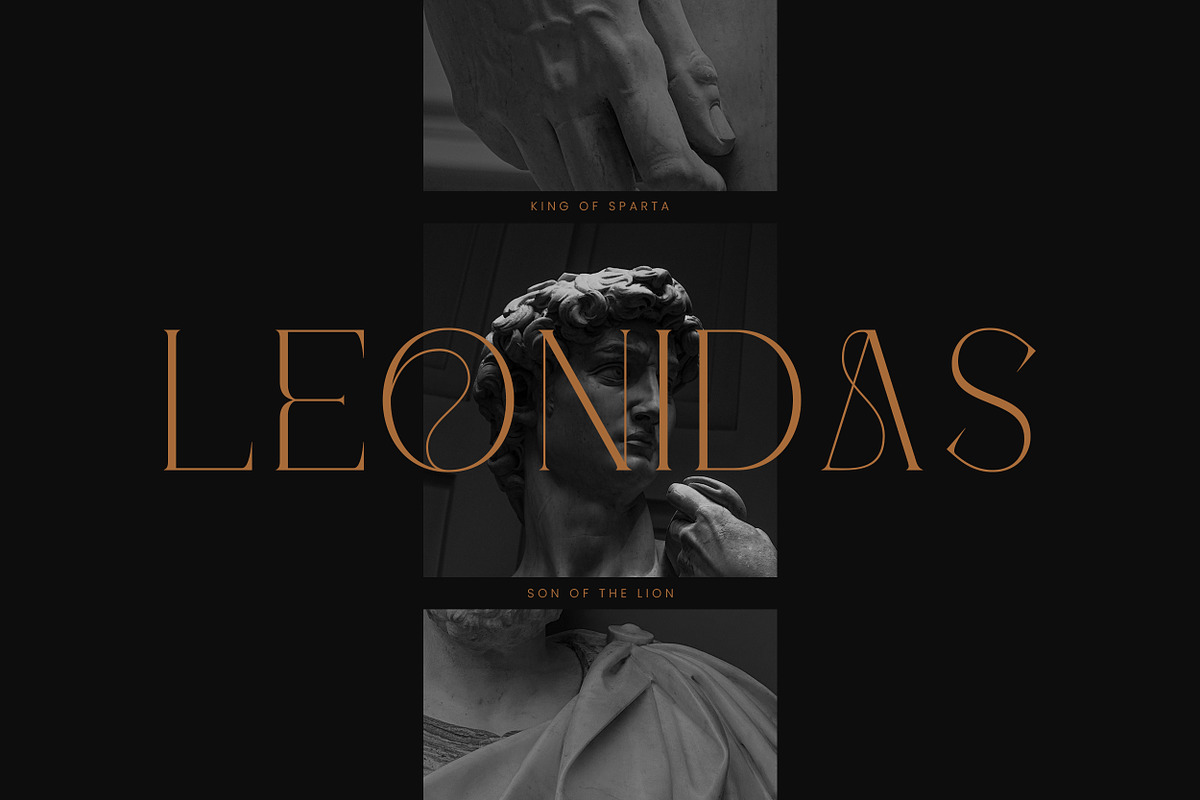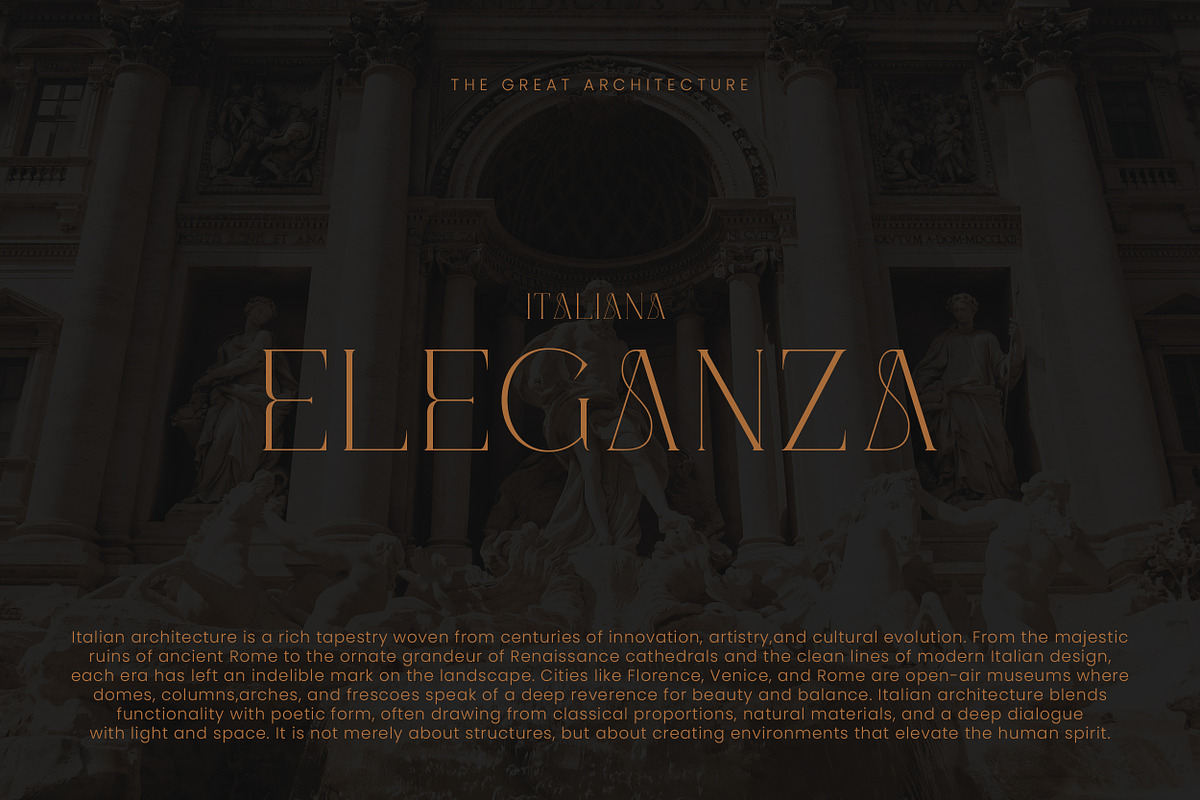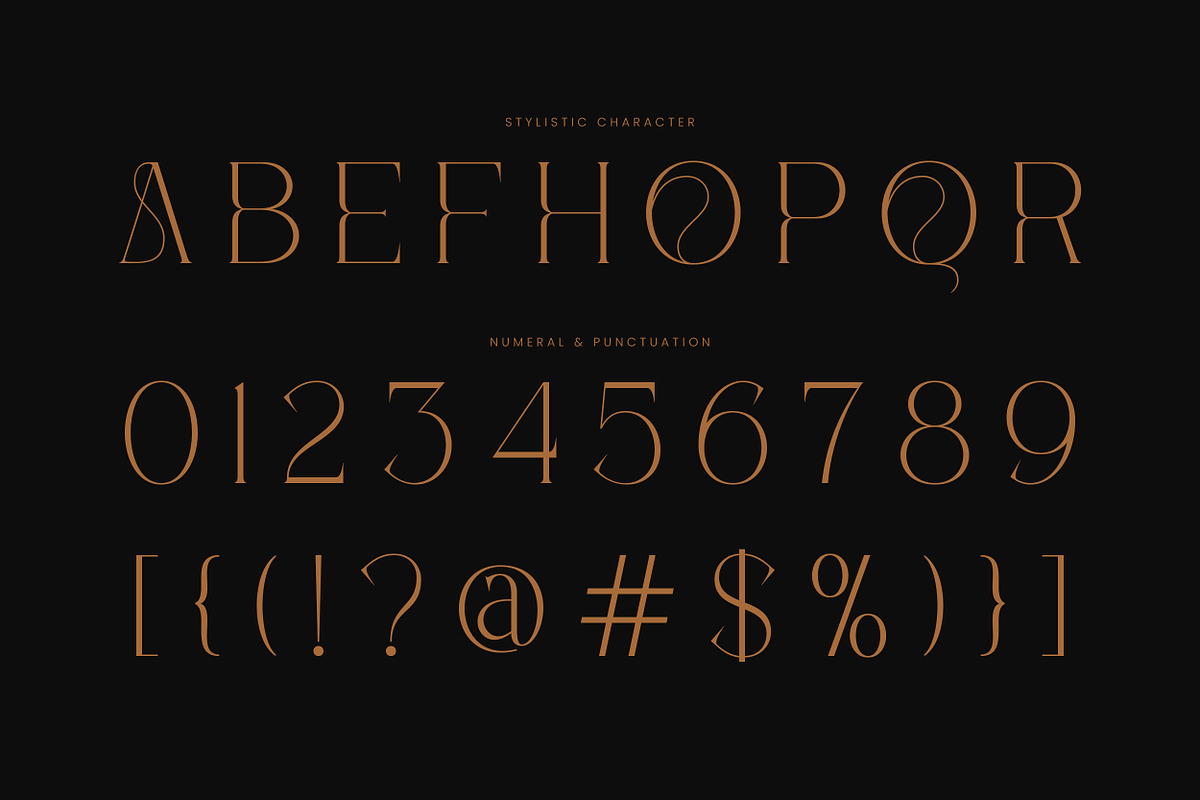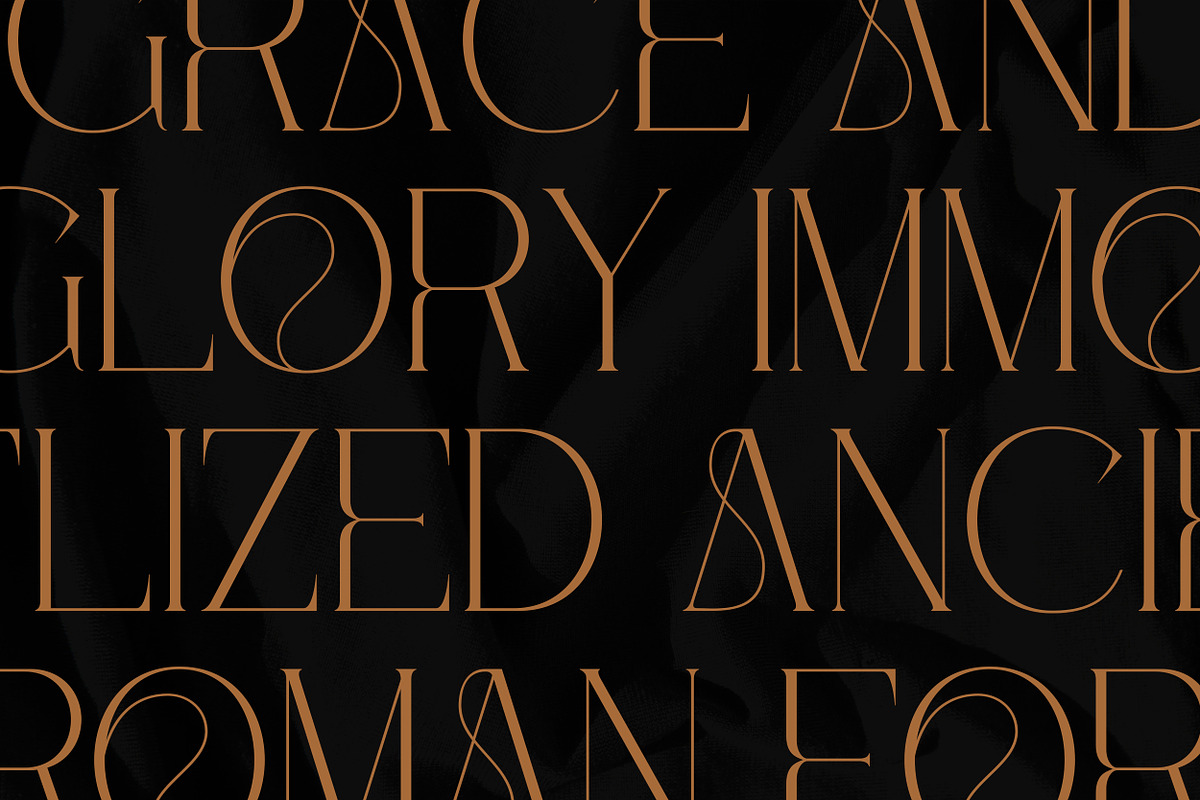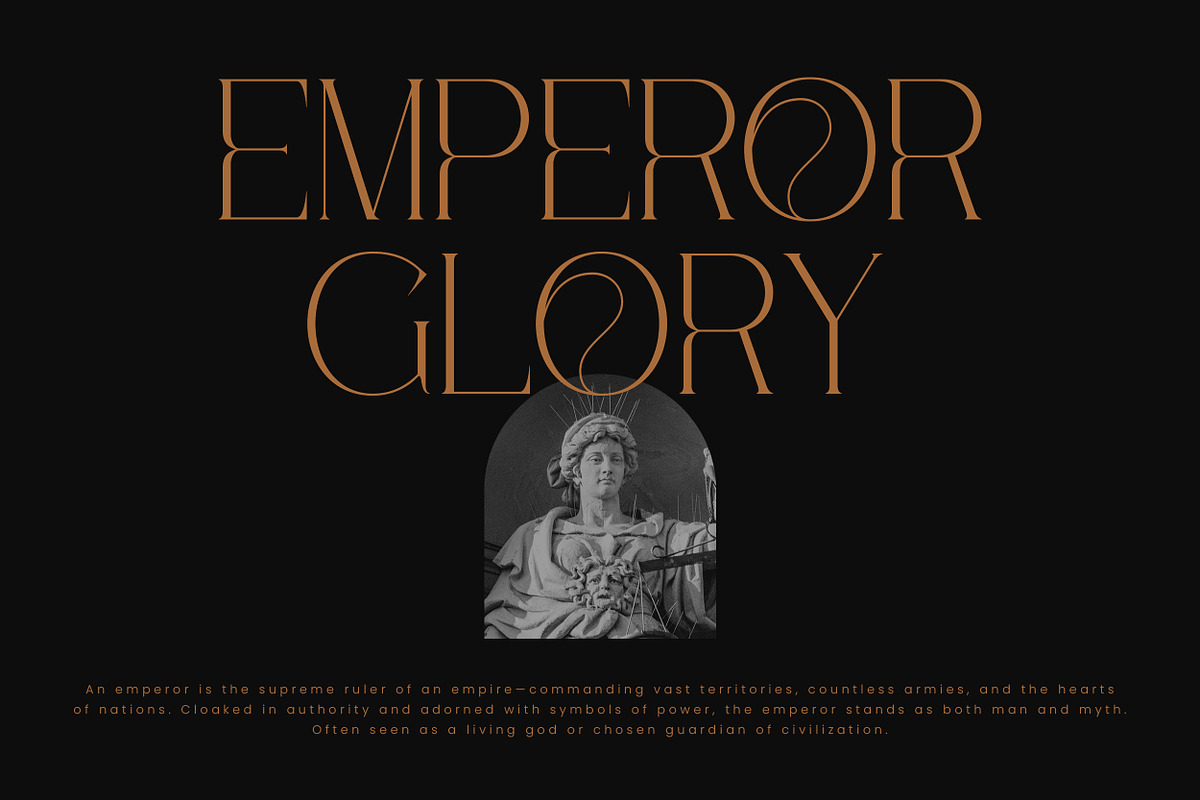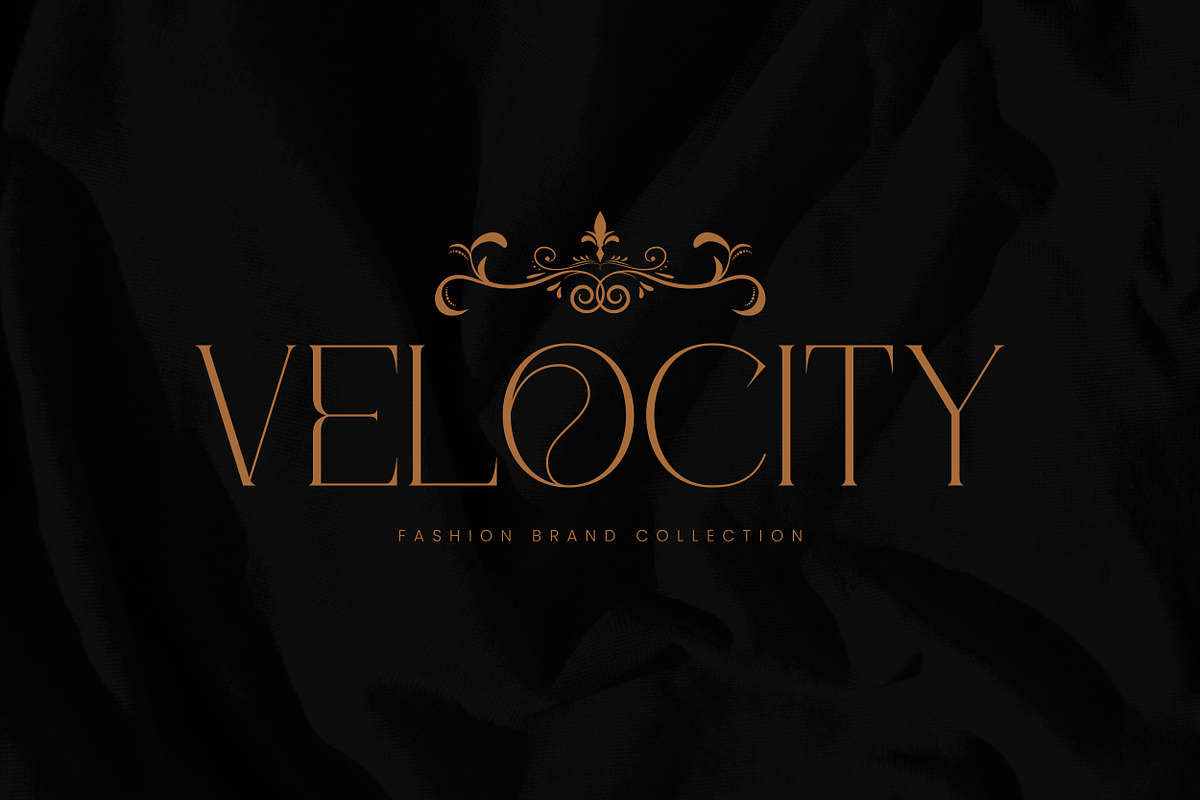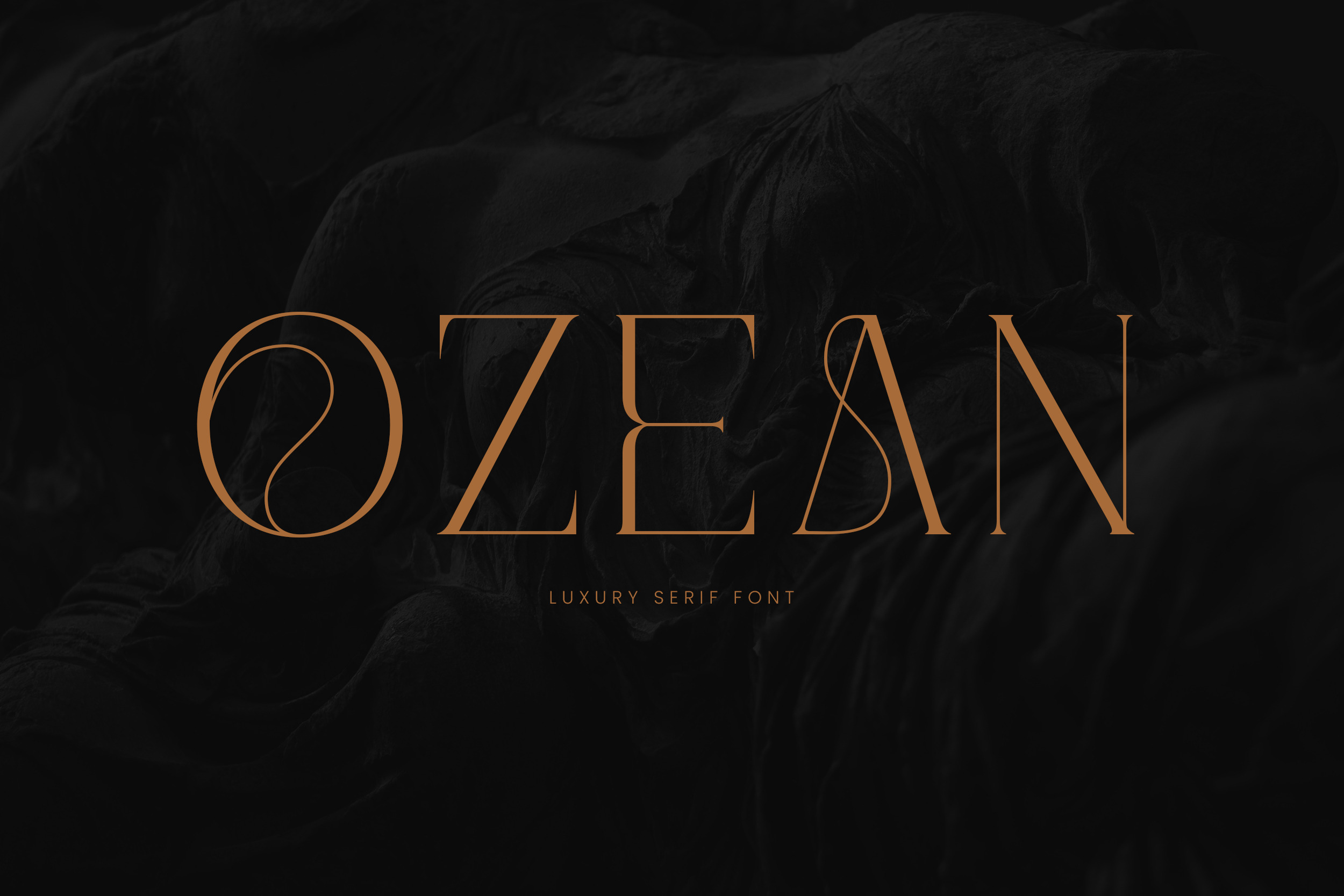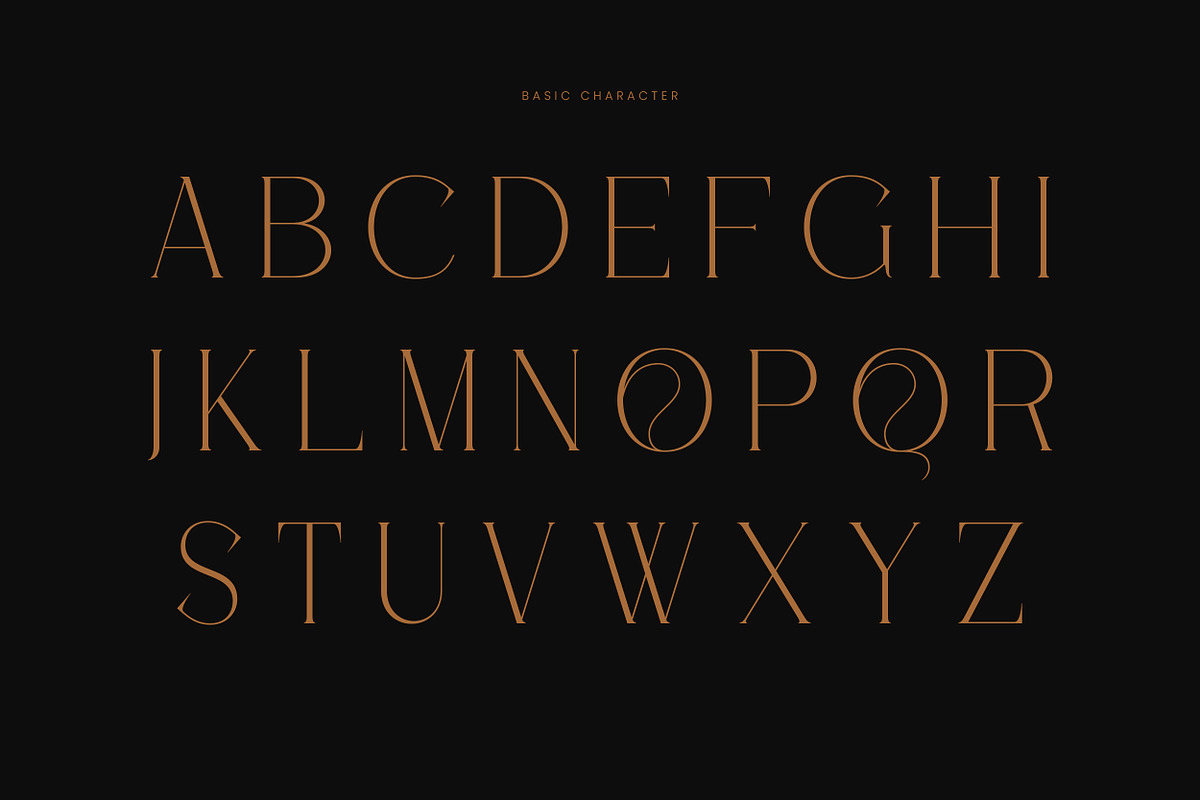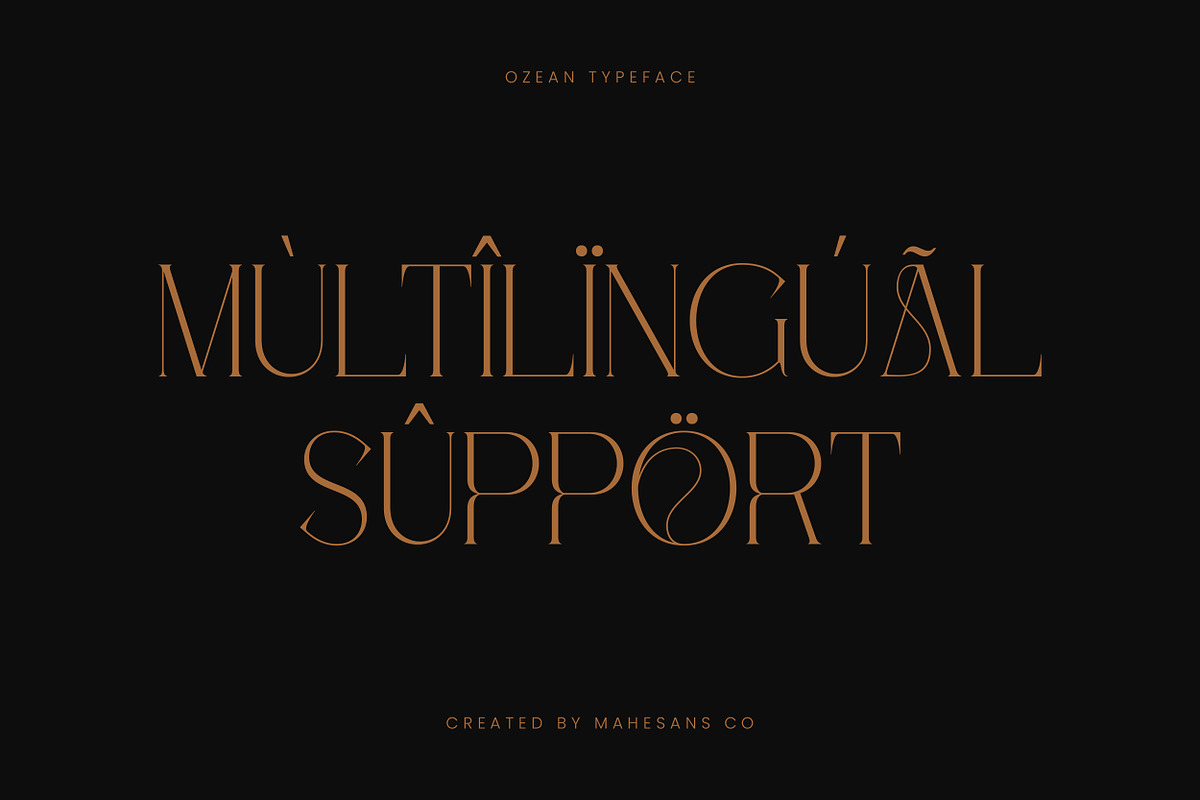
Ozean | Luxury Serif Font
Ozean is a sophisticated luxury serif font that captures the essence of elegance and timeless refinement. With its high-contrast strokes, elongated letterforms, and unique artistic curves—especially in characters like “O” and “A”—Ozean radiates opulence and exclusivity. Designed for premium branding, fashion editorials, packaging, and high-end design projects, Ozean blends classic serif tradition with modern aesthetics. Its graceful forms and sculptural details evoke a sense of grandeur, making every letter a visual statement. Perfect for luxury logos, magazine headlines, or wedding invitations, Ozean delivers a bold, graceful presence that commands attention and elevates your design with unmistakable class.
- Allcaps
- Numberial & Punctuation
- Multilanguage